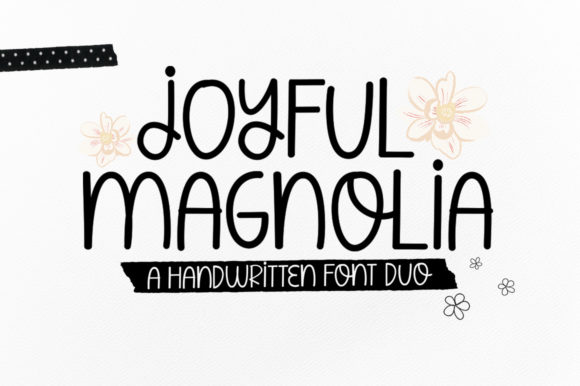
Introducing the Joyful Magnolia Duo Font: Elevate Your Designs with a Touch of Whimsy
The Joyful Magnolia Duo Font is a delightful pair of handwritten fonts that are sure to add a dash of personality to your designs. This versatile duo consists of two distinct fonts: a casual and playful handwritten font and a signature-style script. Whether you’re a designer, artist, or DIY enthusiast, this font duo is perfect for creating stunning watercolor designs, hand-bold styles, and more.
What Makes the Joyful Magnolia Duo Font So Special?
The Joyful Magnolia Duo Font is a unique and creative combination of two fonts that complement each other beautifully. The casual and playful handwritten font is perfect for creating fun and lively designs, while the signature-style script adds a touch of elegance and sophistication. This font duo is ideal for a wide range of design projects, including:
- Blog headers and social media graphics
- Posters and flyers
- Wedding elements and stationery
- T-shirts and apparel
- Book covers and magazine layouts
- Business cards and greeting cards
- Branding and merchandise
- Invitations and handmade quotes
Key Features of the Joyful Magnolia Duo Font
The Joyful Magnolia Duo Font comes with several exciting features that make it a must-have for designers and DIY enthusiasts. Some of the key features include:
- Handwritten Style: The font duo features a beautiful handwritten style that adds a touch of personality to your designs.
- Signature-Style Script: The signature-style script font is perfect for creating elegant and sophisticated designs.
- Versatility: The Joyful Magnolia Duo Font is versatile and can be used for a wide range of design projects.
Benefits of Using the Joyful Magnolia Duo Font
The Joyful Magnolia Duo Font offers several benefits to designers and DIY enthusiasts. Some of the benefits include:
- Unique and Creative Designs: The font duo allows you to create unique and creative designs that stand out from the crowd.
- Time-Saving: The font duo saves you time and effort by providing a versatile and easy-to-use font solution.
- Elegance and Sophistication: The signature-style script font adds a touch of elegance and sophistication to your designs.
Who Can Benefit from the Joyful Magnolia Duo Font?
The Joyful Magnolia Duo Font is perfect for a wide range of individuals and businesses, including:
- Graphic Designers: Graphic designers can use the font duo to create stunning designs for clients.
- DIY Enthusiasts: DIY enthusiasts can use the font duo to create personalized designs for their projects.
- Small Business Owners: Small business owners can use the font duo to create branding materials, such as logos, business cards, and brochures.
- Artists: Artists can use the font duo to create unique and creative designs for their artwork.
The Joyful Magnolia Duo Font is a versatile and creative font solution that is perfect for designers, DIY enthusiasts, and businesses. With its unique and handwritten style, signature-style script font, and PUA encoding, this font duo is ideal for creating stunning designs for a wide range of projects. Whether you’re looking to add a touch of elegance and sophistication or a dash of whimsy and personality, the Joyful Magnolia Duo Font is the perfect choice.